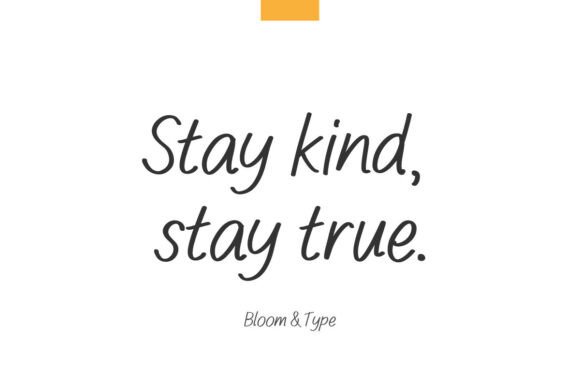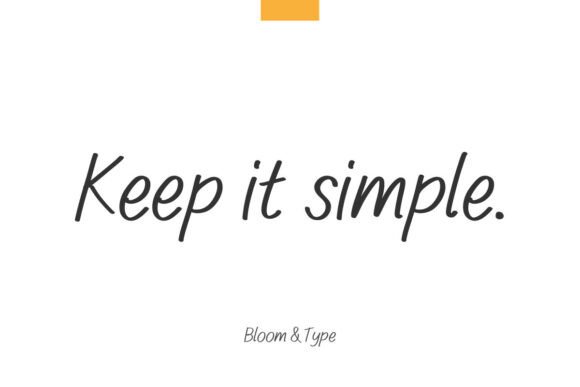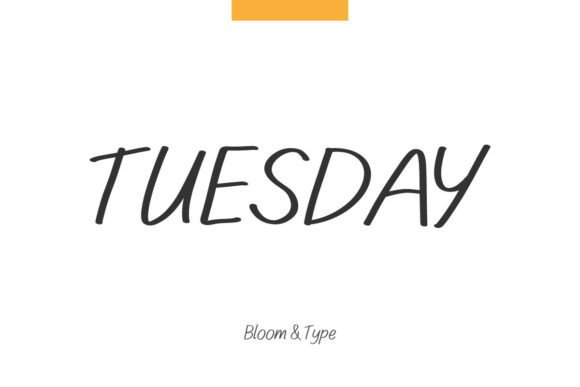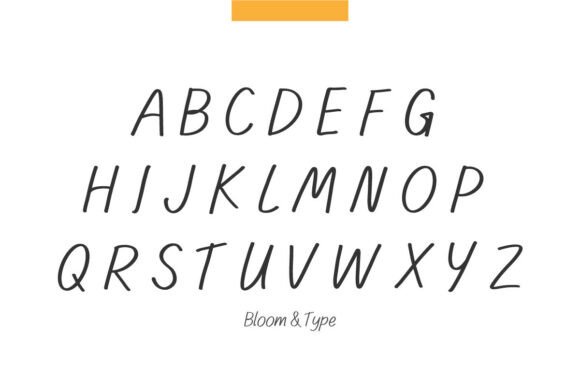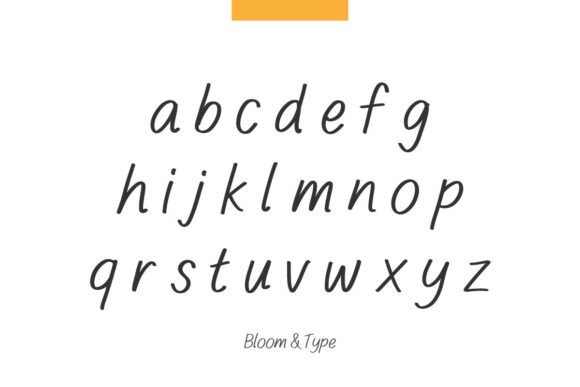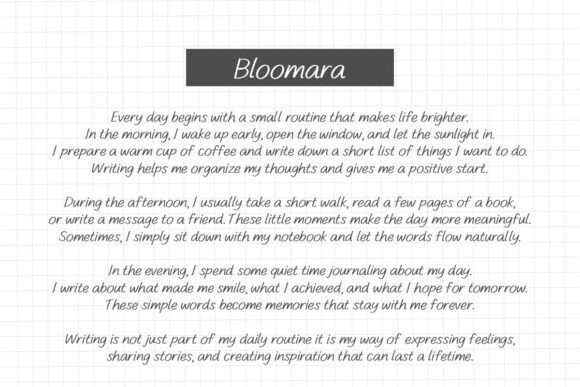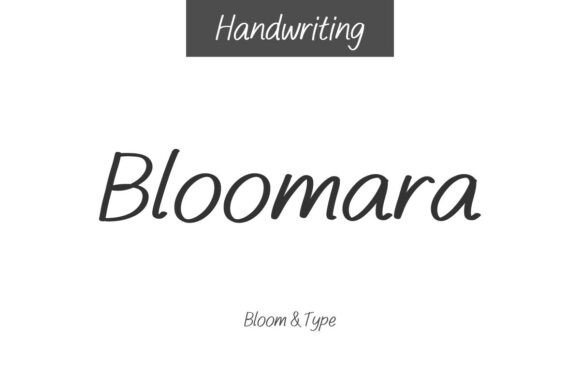
Bloomara Font: Elevate Your Design with Elegance and Simplicity
In the world of typography, fonts play a crucial role in conveying the tone and personality of a brand or design. Among the numerous fonts available, Bloomara stands out as a smooth and elegant handwritten font that embodies simplicity, kindness, and authenticity. With its modern handwritten rhythm, clean lines, and rounded edges, Bloomara is perfect for designers and crafters looking to add a personal touch to their projects.
The Characteristics of Bloomara Font
Bloomara’s unique charm lies in its natural flow and effortless aesthetic. Each letter is carefully crafted to create a soft, yet confident look that is ideal for contemporary design. The font’s clean lines and balanced spacing contribute to its calm and gentle warmth, making it perfect for a wide range of applications.
Some of the key characteristics of Bloomara font include:
- Smooth and elegant handwritten style
- Modern handwritten rhythm
- Clean lines and rounded edges
- Balanced spacing for optimal readability
- Soft and effortless aesthetic
- Conveys a sense of calm confidence and gentle warmth
Bloomara’s versatility makes it an excellent choice for various design projects, including:
- Branding & Logo Design: Create a lasting impression with Bloomara’s elegant and sophisticated look.
- Social Media Posts: Add a personal touch to your social media content and make it stand out.
- Inspirational Quotes: Convey your message with kindness and authenticity.
- Invitations & Greeting Cards: Add a touch of warmth and sincerity to your invitations and greeting cards.
- Packaging & Product Design: Elevate your product design with a font that exudes calm confidence and gentle warmth.
- Journals & Planners: Create a beautiful and functional journal or planner with Bloomara’s elegant look.
- Blog Titles & Headers: Make a statement with Bloomara’s smooth and effortless aesthetic.
Why Choose Bloomara Font?
Bloomara font offers several benefits that make it an excellent choice for designers and crafters:
- Easy to Use: Bloomara is a user-friendly font that can be easily integrated into your design projects.
- Versatile: Suitable for a wide range of design applications, from branding and logo design to social media posts and product packaging.
- Sincere and Heartfelt: Conveys a sense of kindness, authenticity, and warmth, making it perfect for designs that require a personal touch.
Bloomara font is an excellent choice for designers and crafters looking to add a touch of elegance and simplicity to their projects. With its smooth and elegant handwritten style, modern handwritten rhythm, and clean lines, Bloomara is perfect for a wide range of design applications. Whether you’re looking to create a brand identity, design social media content, or craft inspirational quotes, Bloomara font is sure to elevate your design and convey a sense of kindness, authenticity, and warmth.